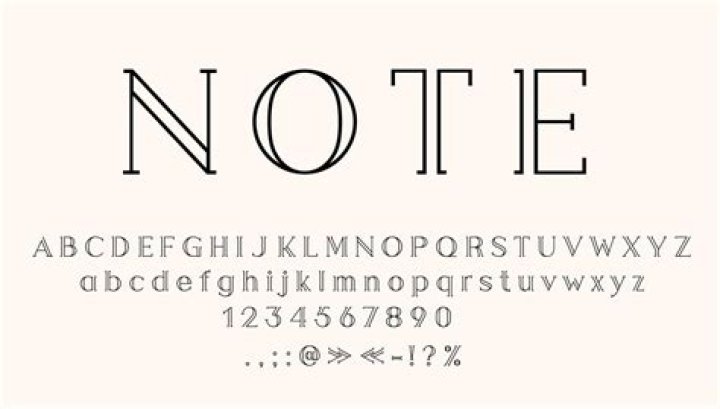
Is there a font with outline?
Altero Solid & Outline Font The Altero is another font duo with a solid and an outline font. It’s free for personal and commercial use. It comes with uppercase letters, numbers, and punctuation symbols. If you need to add a special touch to your designs, an outline font might be just what you need.
How do you outline fonts?
Add an outline, shadow, reflection, or glow text effect
1. Select your text or WordArt.
2. Click Home > Text Effects.
3. Click the effect you want. For more choices, point to Outline, Shadow, Reflection, or Glow, and then click the effect you want.
How do you outline letters in color?
If you are using Outlook
1. Click the WordArt that you want to add an outline to.
2. Under WordArt Tools, on the Format tab, in the WordArt Styles group, click Shape Outline, and then do one of the following: To add or change an outline color, click the color that you want. To choose no color, click No Outline.
What is an inline font?
inline. Describes a typeface with white lines appearing inside the character strokes, sometimes intended to imitate carving or chiseling, as if the characters were carved in stone or wood, or to imitate engraving in metal. Inline typefaces are generally reserved for display work (examples: Delphian, Colonna, Castellar) …
How do you make white text outline black on Google Slides?
To create a text outline in Google Slides, you need to do the following:
1. Select Insert in the main menu and click Word art.
2. Enter the text, and press Enter.
3. Press Fill color on the control panel and select the color you like.
4. Next, to change the color of the outline, click Border color and select the color.